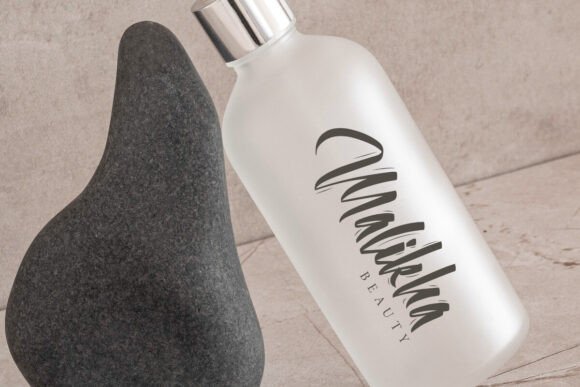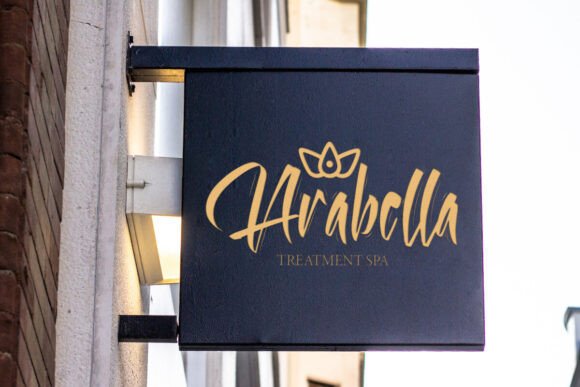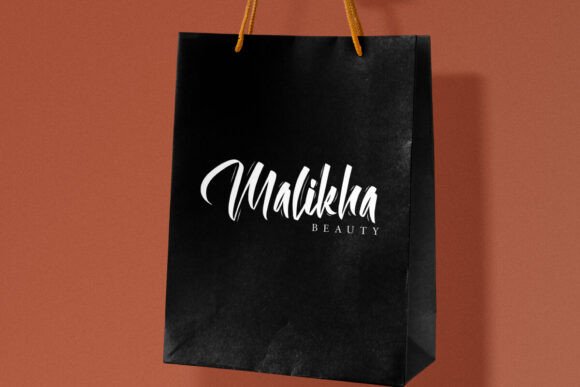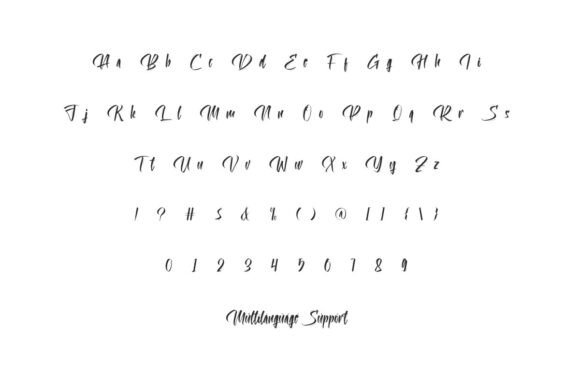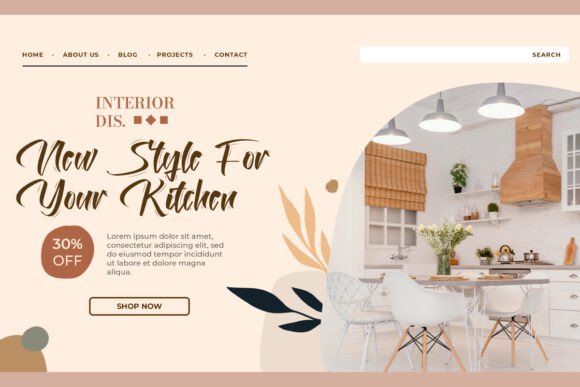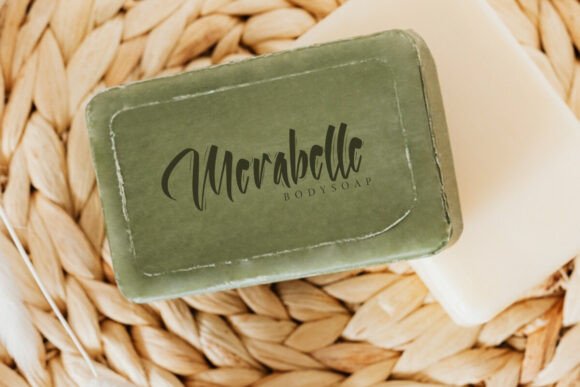
Introducing Halogenious Font: Elevate Your Designs with a Vintage Calligraphic Script
In the world of design, fonts play a crucial role in conveying the tone and personality of a brand or project. For designers and crafters looking to add a touch of elegance and sophistication to their work, Halogenious Font is an excellent choice. This stunning vintage calligraphic script display font is designed to make your designs stand out, with a unique textured effect that adds depth and character to its letters.
What is Halogenious Font?
Halogenious Font is a carefully crafted font that embodies the essence of vintage calligraphy. Its beautifully designed characters feature a distinctive textured effect, giving your designs a sense of authenticity and nostalgia. This font is perfect for a wide range of applications, from branding and digital designs to print materials and more.
Perfect for Branding and Digital Designs
Halogenious Font is an excellent choice for designers looking to create stunning branding and digital designs. Its elegant and sophisticated style makes it ideal for:
- Advertising: Create eye-catching ads that grab attention with Halogenious Font.
- Blogs: Add a touch of elegance to your blog headers and titles.
- Brand Identity: Establish a strong brand presence with a unique and recognizable font.
- Brochures: Create professional and visually appealing brochures that showcase your products or services.
- Corporate Signs: Make a lasting impression with beautifully designed corporate signs.
- Cover: Design stunning book covers that capture the essence of your story.
- Headers: Elevate your website or blog headers with a touch of sophistication.
- Invitations: Create elegant and memorable invitations for special occasions.
- Labels: Design eye-catching labels that stand out on products or packaging.
- Logos: Craft unique and recognizable logos that represent your brand.
- Packaging Design: Add a touch of elegance to your product packaging.
- Quotes: Design inspiring and visually appealing quotes that resonate with your audience.
- Stationery: Create beautiful and professional stationery that reflects your brand’s personality.
- Stickers: Design eye-catching stickers that grab attention.
- Typographic Design: Experiment with Halogenious Font in your typographic designs.
- Website: Elevate your website’s design with a touch of sophistication.
Why Choose Halogenious Font?
Halogenious Font offers a unique combination of style, elegance, and versatility. Here are just a few reasons why designers and crafters love this font:
- Unique Textured Effect: The font’s textured effect adds a touch of authenticity and nostalgia to your designs.
- Vintage Calligraphic Style: Halogenious Font embodies the essence of vintage calligraphy, making it perfect for designs that require a touch of elegance.
- Highly Versatile: This font is suitable for a wide range of applications, from branding and digital designs to print materials.
- Elegant and Sophisticated: Halogenious Font is designed to add a touch of sophistication to your designs.
Halogenious Font is an excellent choice for designers and crafters looking to add a touch of elegance and sophistication to their work. With its unique textured effect, vintage calligraphic style, and high versatility, this font is perfect for a wide range of applications. Whether you’re designing branding materials, digital designs, or print materials, Halogenious Font is sure to elevate your designs and make them stand out.